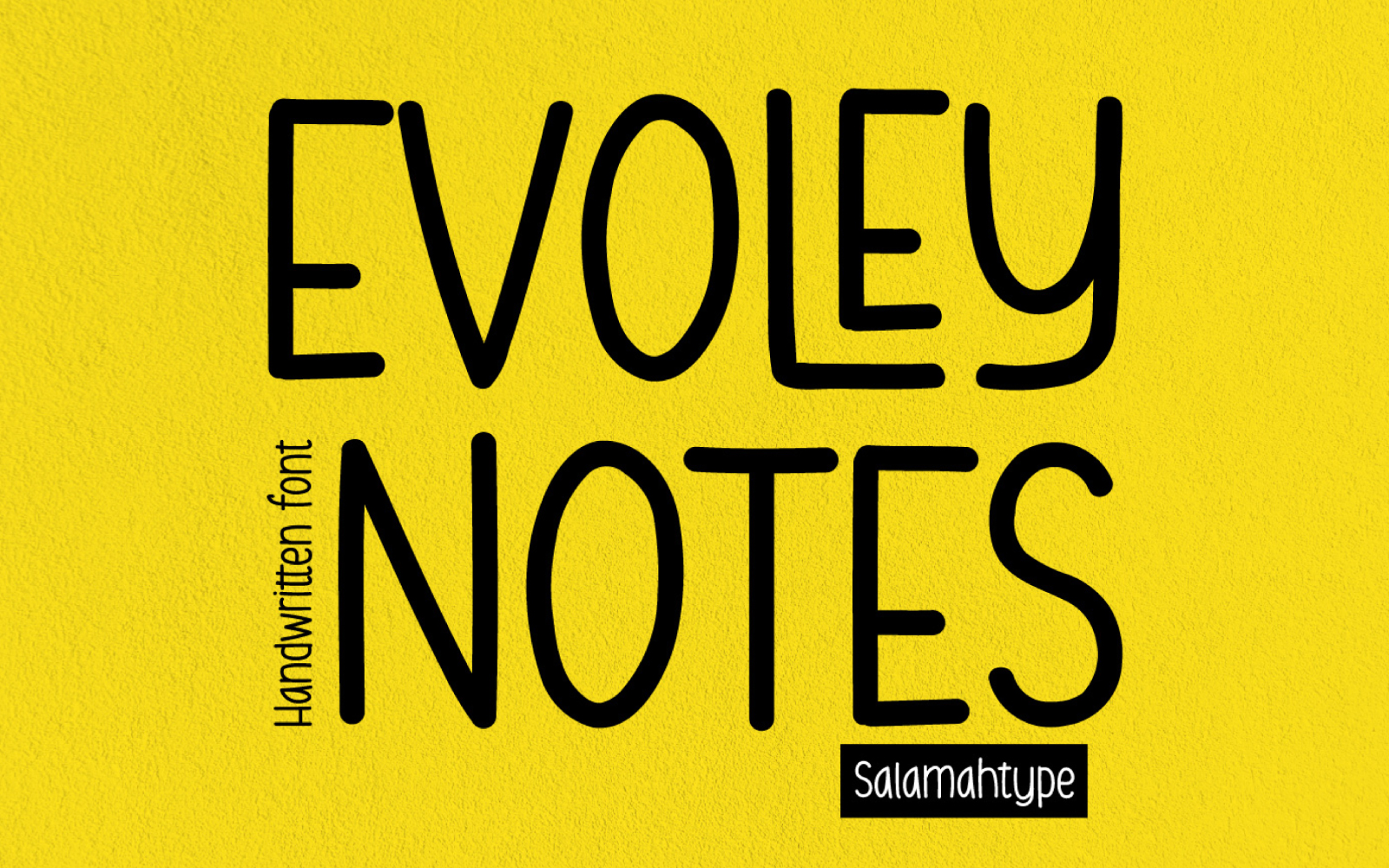
Evoley Notes - Cute Clean Handwriting Font
"Evoley Notes" a chic handwritten font infused with stylish ligatures for added flair. Versatile and charming, it's tailor-made for quotes, magazines, labels, branding, posters, logos, and beyond. Elevate your designs with Evoley Notes, where simplicity meets sophistication for impactful visual communication.